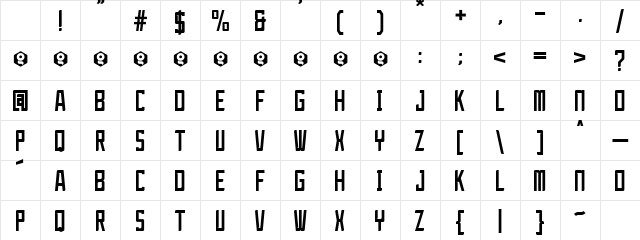
Complete JerrySport Med uler Regular glyph index. Displaying only characters natively supported by JerrySport Med uler Regular font.
JerrySport Med uler brings high-energy athletic personality to the page - its confident, muscular forms are built for impact.